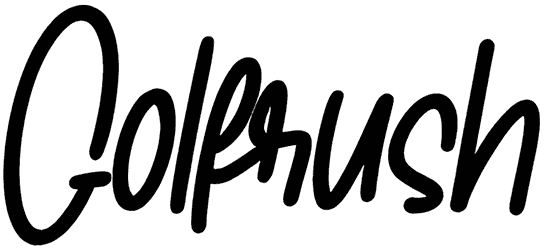
Golfrush Font
Some kinds of artwork, like gift cards, business cards, menus, logos, or social media posts, require a personalized handwritten touch, and in this way, a wonderful script font like Golfrush would work beyond all of your imaginations.
Its characters are designed with well-rounded curves and a special angle, thus it carries a sense of professionalism, accuracy, majesty, or jauntiness. Considering all of its numerous benefits, the lack of numbers would be easily overlooked.